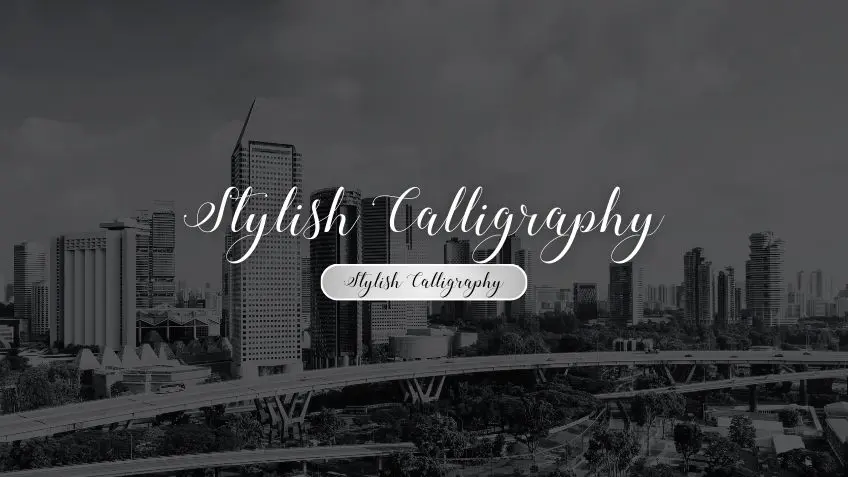
The font Stylish Calligraphy Demo, designed by Misti's Fonts, falls under the Script category & Stylish Calligraphy font family. Its smooth, flowing letterforms make it a versatile choice for projects that require both elegance and readability. Stylish Calligraphy is particularly well-suited for Social Media and Marketing, Product Packaging, Personalized Products, Wedding Invitations and Stationery and Branding and Logos. With its balance of simplicity and decorative appeal, this font brings a polished touch to both personal and professional designs.